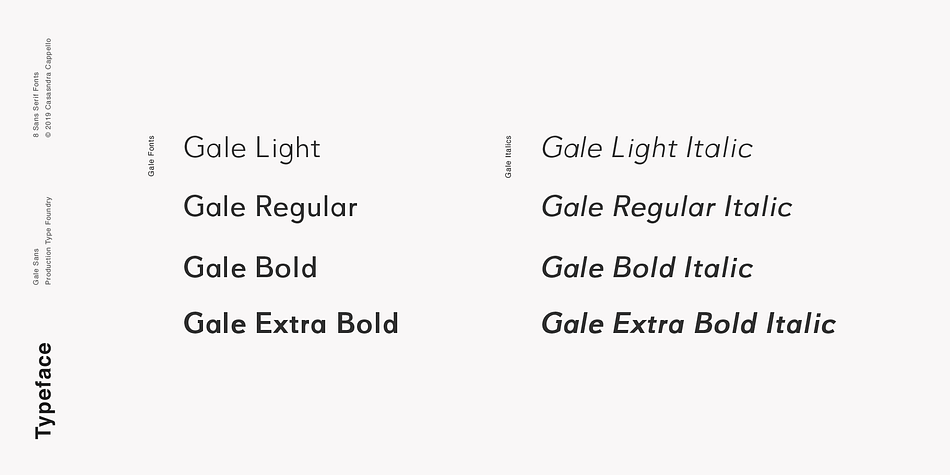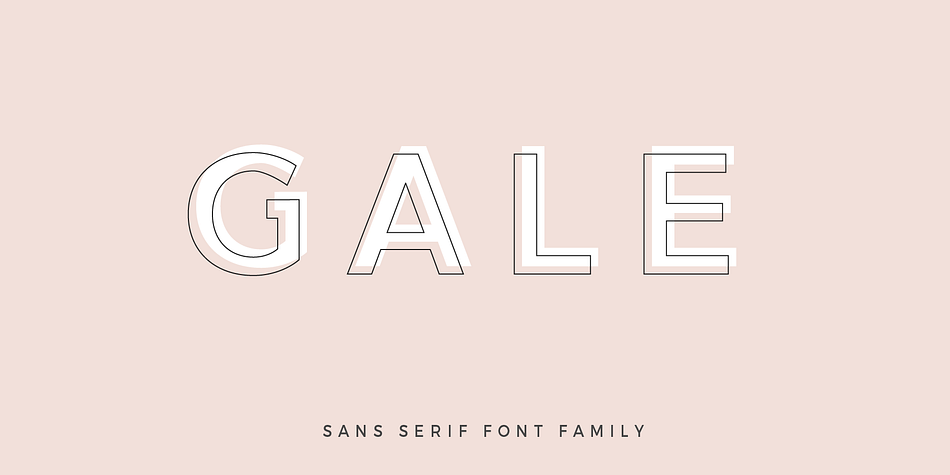
Gale
Designed by Cassandra Cappello, Gale is a sans serif font family. This typeface has eight styles and was published by Cappello Designs.
Gale is a modern, feminine, geometric, sans serif typeface. It’s mainly classified as a 20th century Neo-Grotesque typeface, but it also has some Geometric elements mixed in to some of the characters.
It has a little bit of personality and can be used for both headers and body copy. This font family includes all Latin characters (including accents), numbers, special characters, and punctuation.
Designer Cassandra Cappello